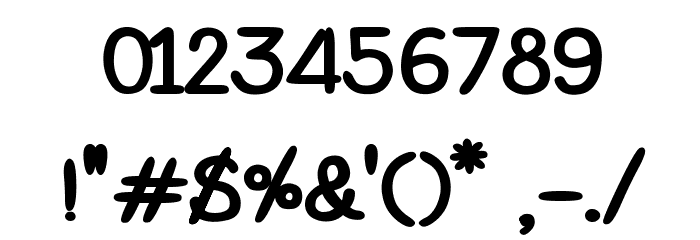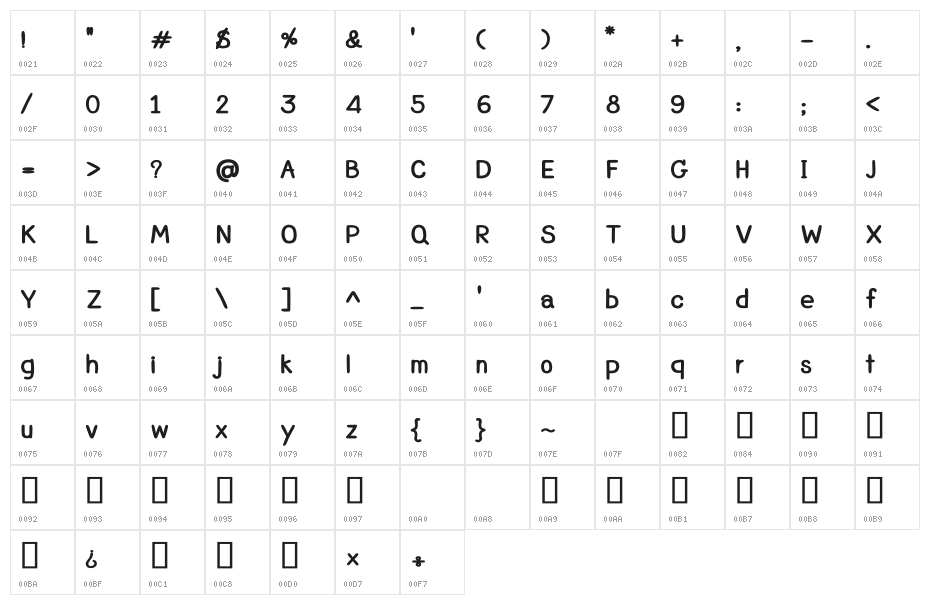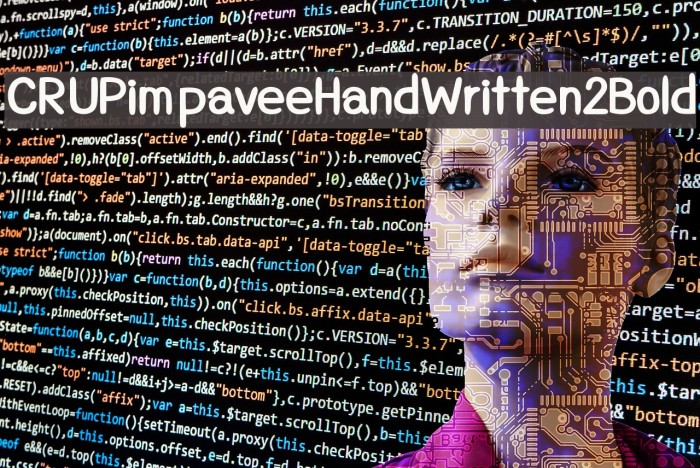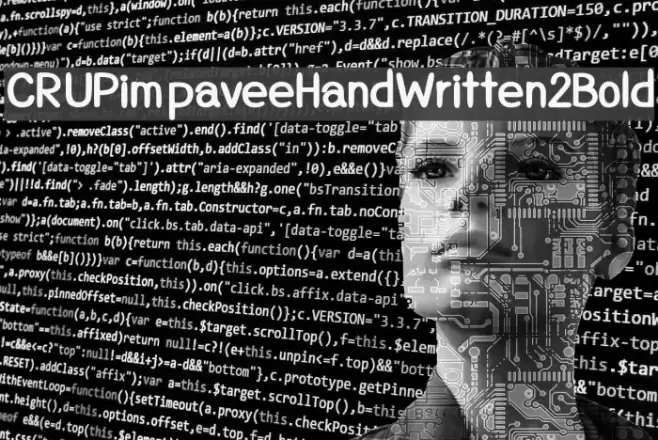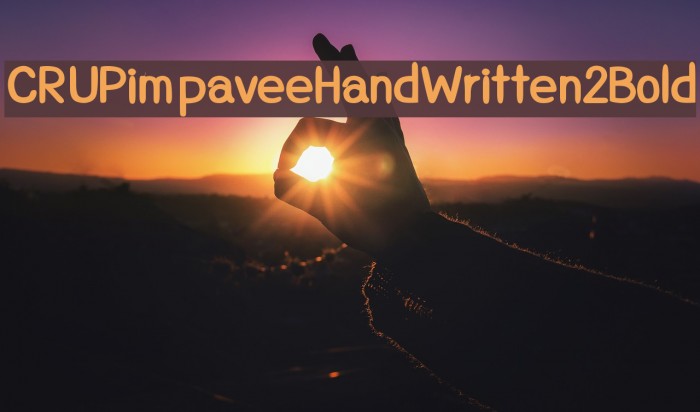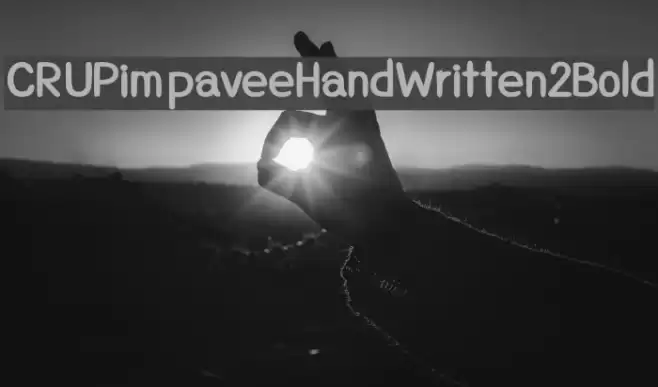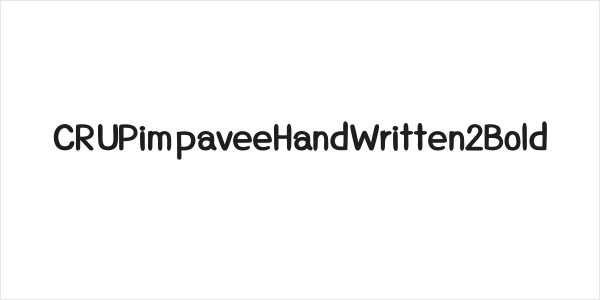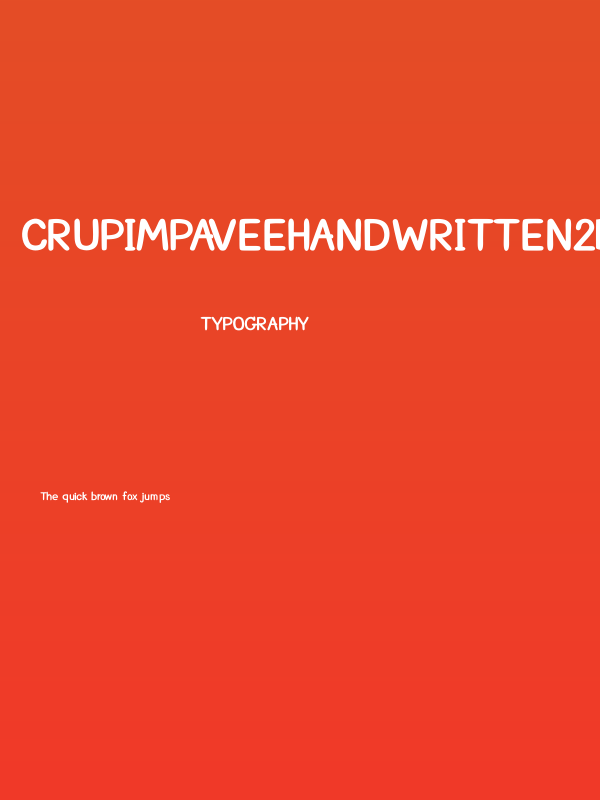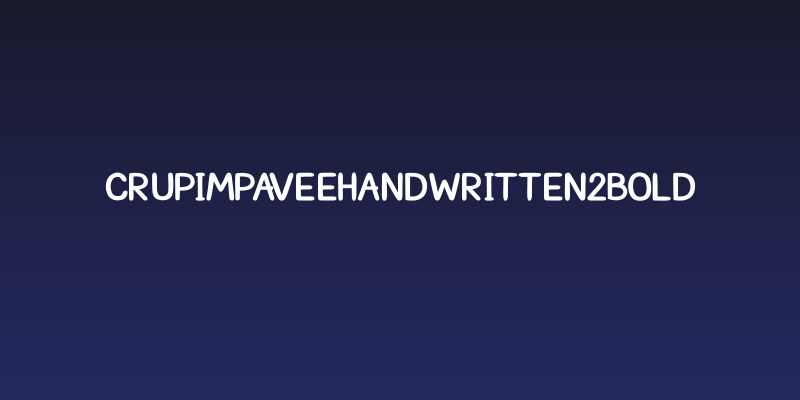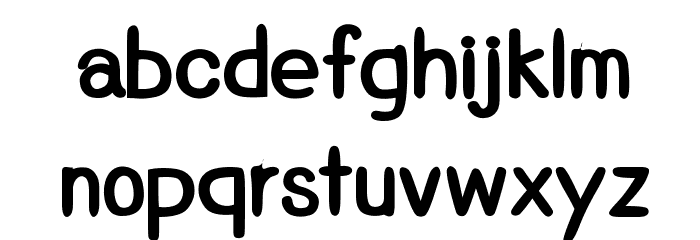
CRUPimpaveeHandWritten2Bold Font
CRUPimpaveeHandWritten2Bold Description
This font exhibits a playful and casual handwritten style, characterized by its rounded and smooth letterforms. The strokes are consistent in thickness, providing a uniform appearance across all characters. The uppercase and lowercase letters maintain a friendly and approachable aesthetic, making it suitable for informal and creative projects. The numerals and special characters are designed to complement the overall style, ensuring readability and coherence. This font's design is ideal for projects that require a personal touch, such as greeting cards, invitations, or children's book illustrations.
| Proposed Projects | Ideal for greeting cards, invitations, children's books, and creative projects. |